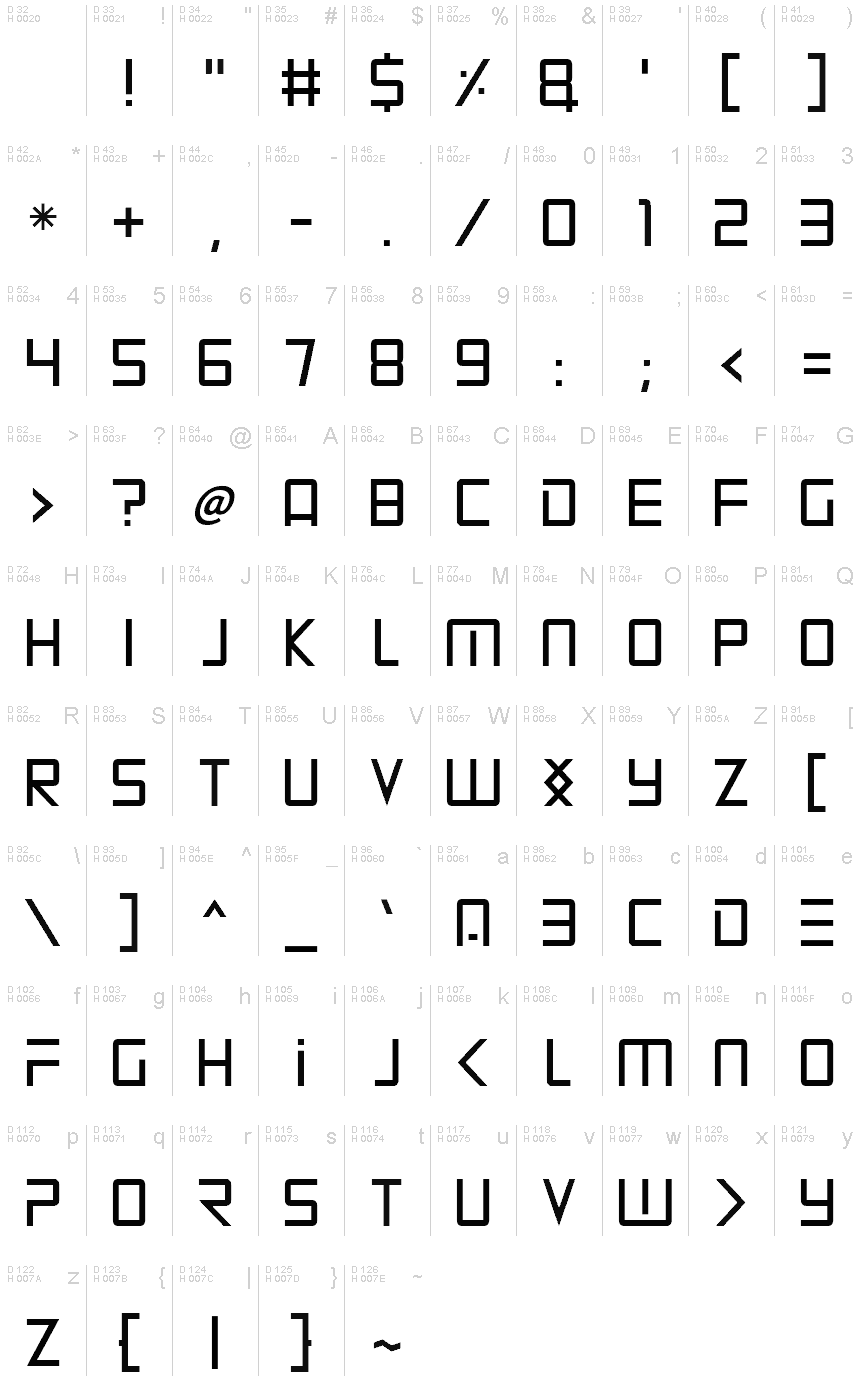
Mars Mission
The Mars Mission font, crafted by Darrell Flood of Hawtpixel, exudes a captivating futuristic aesthetic. With its sharp, angular lines and bold, geometric forms, this display-style typeface evokes a sense of technological prowess and exploration. The striking visual impact of Mars Mission immediately commands attention, making it an ideal choice for projects seeking to convey a sense of innovation, modernity, and adventure.
This versatile font lends itself well to a variety of design applications, from eye-catching headlines and impactful logos to dynamic digital interfaces and immersive sci-fi narratives. The commanding presence and futuristic flair of Mars Mission make it a compelling option for branding, marketing, and advertising initiatives aimed at capturing the imagination of a forward-thinking audience.
*This font includes italics and alternate characters for A,B,E,F,I,K,M,P,R,W and X.